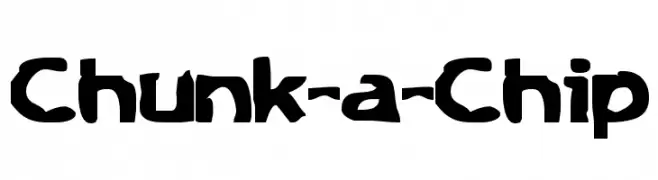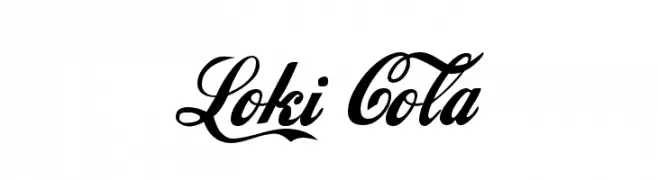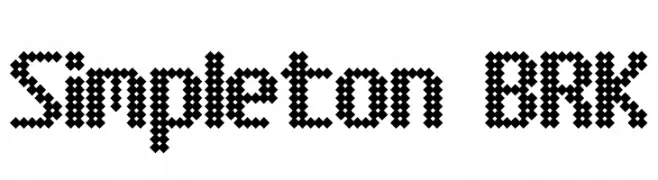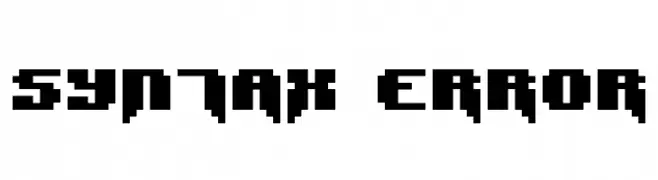
A cross-stitch patterned font with a handcrafted, decorative style.
A pixelated, retro-style font with a blocky, digital appearance.
A bold, playful font with a chunky, hand-drawn style.
A 3D cubic font with a modern, geometric style.
A vintage script font with elegant, flowing cursive strokes and high contrast.
A bold, pixelated font with a retro digital aesthetic.